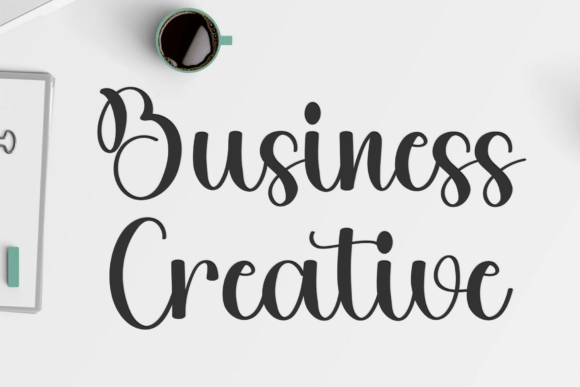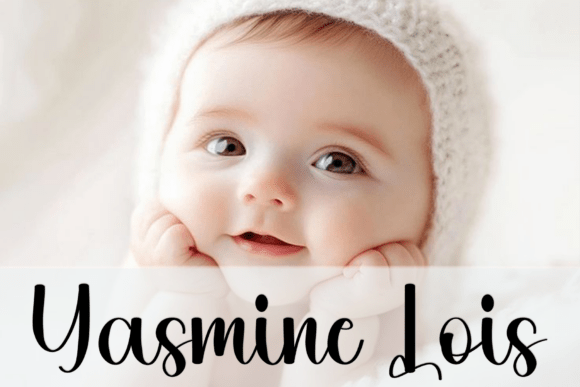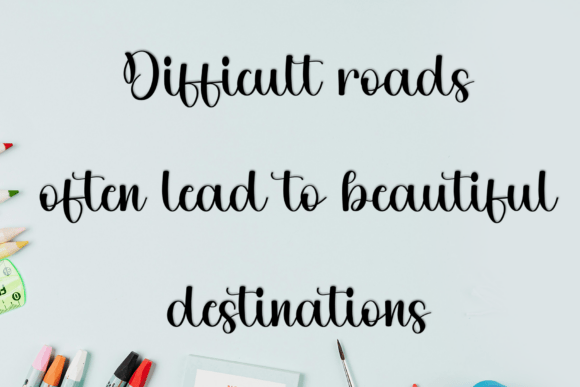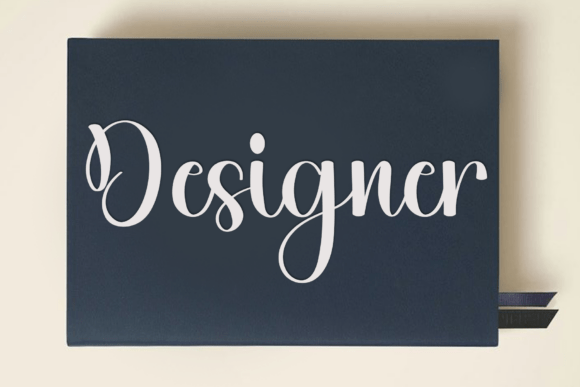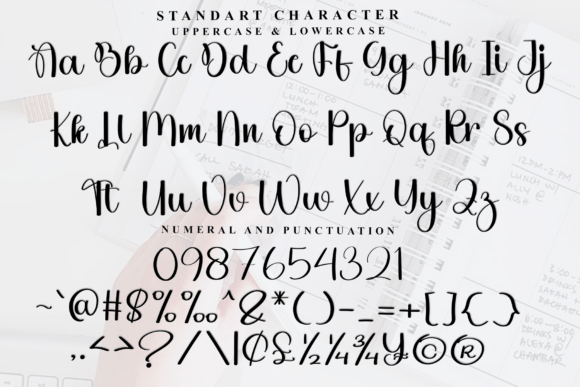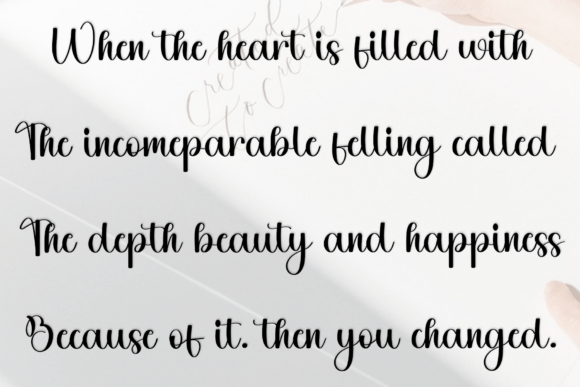
Introducing Beside Font: A Unique and Versatile Typeface for Creative Projects
In the world of typography, a font can make or break a design project. A well-crafted font can elevate your creative work, making it more engaging and visually appealing to your audience. If you’re a designer, crafter, or artist looking for a font that can add a special touch to your projects, look no further than Beside Font. In this article, we’ll explore the features and benefits of Beside Font, and why it’s an excellent choice for your next creative endeavor.
A Soft and Unique Touch
Beside Font is a beautiful and eye-catching typeface designed with a soft, unique touch. Its distinctive strokes give it a special character, making it meaningful and versatile for future use. The font’s gentle curves and rounded edges create a friendly and approachable feel, perfect for designs that require a personal touch. Whether you’re working on a branding project, a craft, or a creative work, Beside Font is sure to make a lasting impression.
One of the standout features of Beside Font is its versatility. With various characters, this font is perfect for a wide range of design projects, crafts, and other creative works. Whether you’re designing a logo, a brochure, or a social media graphic, Beside Font can adapt to any style or theme. Its unique character set ensures that your designs will stand out from the crowd, making it an excellent choice for designers and crafters who want to create something truly special.
Ideal for a Wide Range of Products
Beside Font is an excellent choice for a wide range of products, from digital designs to print materials. Its natural font style makes it perfect for designs that require a personal touch, such as:
- Brochures and flyers
- Crafts and DIY projects
- Artistic and creative works
Enhance Your Designs
Beside Font is designed to enhance your designs, making them appealing to many audiences across different artistic and creative fields. Its unique character set and soft, touchable feel ensure that your designs will stand out from the crowd, making it an excellent choice for designers and crafters who want to create something truly special. With Beside Font, you can:
- Create visually appealing designs that capture your audience’s attention
- Add a personal touch to your designs, making them more relatable and engaging
- Enhance your brand’s identity and create a consistent visual style
- Experiment with different design styles and themes, thanks to the font’s versatility
In conclusion, Beside Font is an excellent choice for designers, crafters, and artists looking for a unique and versatile typeface for their creative projects. Its soft, unique touch, distinctive strokes, and wide compatibility make it perfect for a wide range of design projects, crafts, and other creative works. With Beside Font, you can enhance your designs, making them appealing to many audiences across different artistic and creative fields. So why wait? Download Beside Font today and take your designs to the next level!